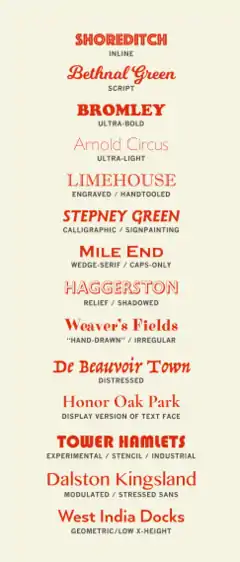
Display typeface
A display typeface is a typeface that is intended for use at large sizes for headings, rather than for extended passages of body text.[1]
A number of common genres of display typeface
Display typefaces will often have more eccentric and variable designs than the simple, relatively restrained typefaces generally used for body text.[2][3][4][5] They may take inspiration from other genres of lettering, such as handpainted signs, calligraphy or an aesthetic appropriate to their use, perhaps ornamented, exotic, abstracted or drawn in the style of a different writing system.[6][7][8]
Several genres of font are particularly associated with display setting, such as slab serif, script font, reverse-contrast and to a lesser extent sans serif.[9][10] Walter Tracy defines display typefaces in the metal type sense as "sizes of type over 14 point" and in design that "text types when enlarged can be used for headings, display types, if reduced, cannot be used for text setting."[11]
Titling fonts are a subset of display typefaces which are typically used for headlines and titles. They are often only uppercase, and have stroke widths optimized for large sizes.[12][13]
Historical background
For the first centuries of printing, display type generally did not exist. Printing was used primarily to print body text, although there might be use of some larger-sized letters for titling. Typefaces not intended for body text remained rooted in conventional letterforms: roman type, script typeface or blackletter. Signs were created as custom handlettering.[14]
The arrival of the poster and greater use of signage spurred the arrival of new kinds of letterform, both as lettering and in print.[14] Historian James Mosley has written that “big types had been cast in sand, using wooden patterns, for some centuries [by 1750] but there is evidence that English typefounders only began to make big letters for posters and other commercial printing towards 1770, when Thomas Cottrell made his 'Proscription or Posting letter of great bulk and dimension' and William Caslon II cast his 'Patagonian' or 'Proscription letters’.”[15][16][17]
New technologies, notably riveted "sanspareil" matrices made printing at large sizes easier from the beginning of the nineteenth century.[18] At the same time, new designs of letter began to appear around the beginning of the nineteenth century, such as "fat face" typefaces (based on serif faces of the period, but much bolder),[19][20] slab serifs (first seen from Vincent Figgins around 1817),[21][22] sans-serifs (already used in custom lettering but effectively unused in printing before the 1830s)[23] and new blackletter faces.[24] Many nineteenth-century display typefaces were extremely, aggressively bold or condensed in order to attract attention. An important development that followed was pantograph-engraved wood type, which allowed cheap printing of large type on posters. Equally, some display typefaces such as Cochin and Koch-Antiqua have a particularly delicate build with a low x-height, and this style was very popular around the start of the twentieth century.[11]
With phototypesetting and digital printing methods allowing fonts to be printed at any size, it has become possible to use fonts in situations where before hand-lettering would be most common, such as on business logos and metal fabricated lettering. Many modern digital typeface families such as Neutraface, Neue Haas Grotesk, and Arno include both text styles and display companion optical sizes with a more delicate design.[25][26][27][28] Walter Tracy comments that in adapting a text face to display use such as in a headline "a judicious closing-up of the letters" improves the appearance.[11]
Styles of display typeface
Common genres of display typeface include:
• Lettering with a design intended to seem hand-drawn, such as script fonts or designs with swashes[29]
• “Shadowed”, “engraved”, “inline” or “handtooled” lettering, with a blank space in the centre intended to suggest three-dimensional letters in relief. An early genre of display type, inline sans-serifs were also very popular in lettering of the inter-war period.[30] "Shaded" or hatched designs have also been made which appear grey when viewed at a distance.[31]
• Unusual or abstract redesigns of the alphabet, such as those drawn by the Bauhaus school of design, Milton Glaser’s Baby Teeth or Indépendant.[32]
• “Distressed” lettering, intended to seem damaged or distorted, such as Shatter or Electric Circus[33]
• Ultra-light or ultra-bold adaptations of conventional letterforms, such as "fat face" types, Cooper Black or Gill Kayo
• Mixed case lettering that mixes upper- and lower-case letters in unexpected ways for an unconventional effect
• Reverse-contrast typefaces that invert the contrast of conventional writing, with the horizontals made thicker than the verticals.[34][35]
• Lettering made to suggest an aesthetic, such as modernism, the natural world, or another genre of lettering. Examples of the latter include use of stencil or embossing tape fonts to suggest an industrial aesthetic.
• “Mimicry” or “simulation” typefaces intended to suggest another writing system. These are often used by restaurants.[36][37]
A more prosaic genre of "display typefaces" is those intended for signage, such as Johnston, Highway Gothic, Transport and Clearview. These often have adaptations to increase legibility and make letters more distinct from each other. For example, Johnston and Transport have a curl on the lower-case ‘L’ to distinguish it from an upper-case ‘i'.[38] In German the term "Akzidenzschrift" (commercial or trade typeface) is used for faces not intended for body text but without implying a specific size range, so including small-size sans-serifs in uses such as on tickets. The famous sans-serif Akzidenz-Grotesk's name (literally commercial sans-serif) derives from this scheme).